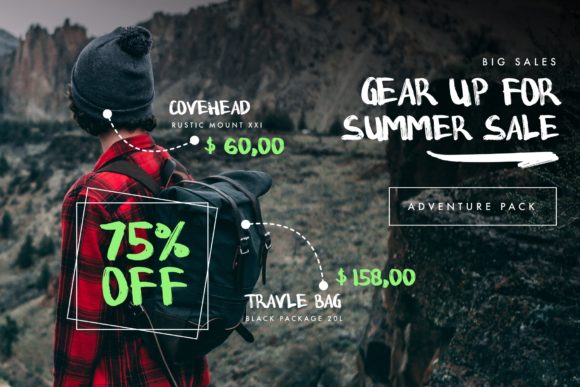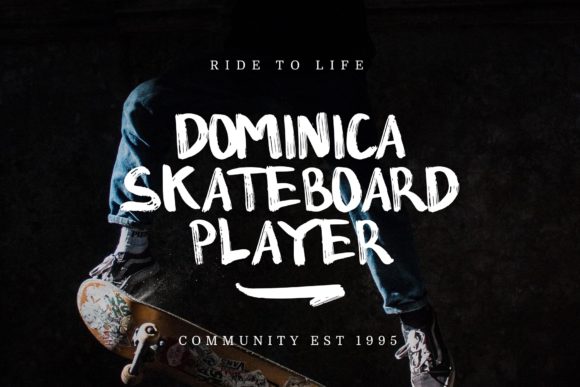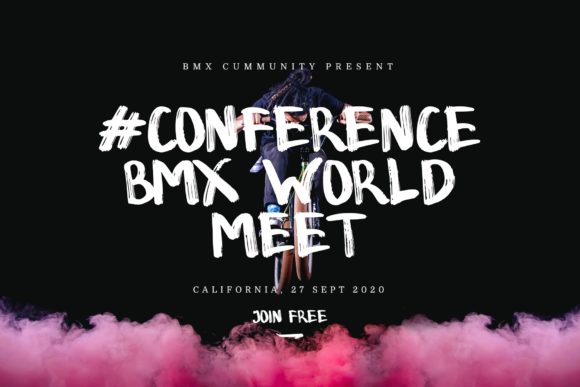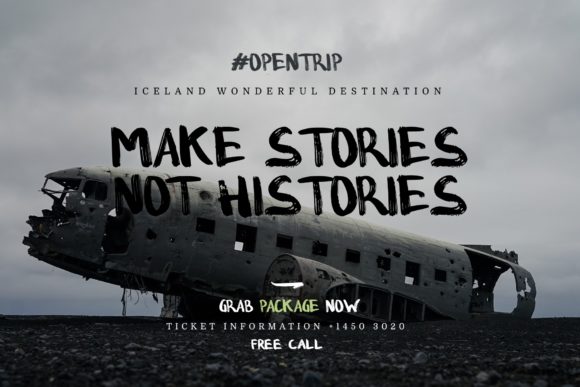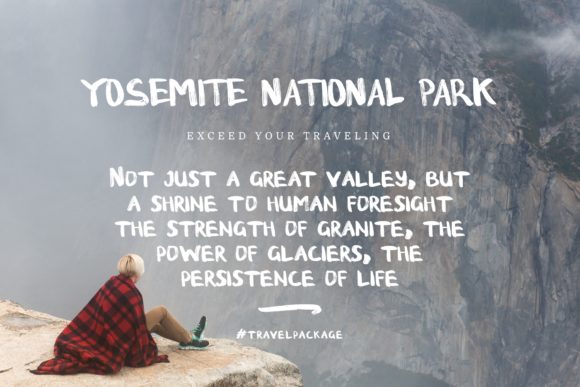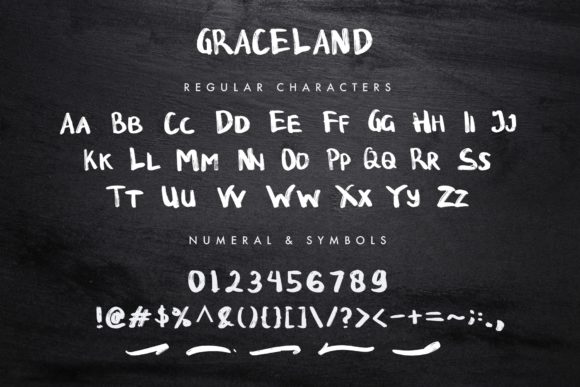
Introduction to Graceland Font
Graceland is a handbrush font with a great personality.
It will elevate a wide range of design projects to the highest level, be it branding, headings, wedding designs, invitations, signatures, logos, labels, and much more .
Key Features of Graceland Font
Why Choose Graceland Font?
Graceland Font offers exceptional quality and versatility, making it a valuable addition to your design toolkit. Whether you’re creating for personal projects or commercial use, Graceland Font delivers professional results.